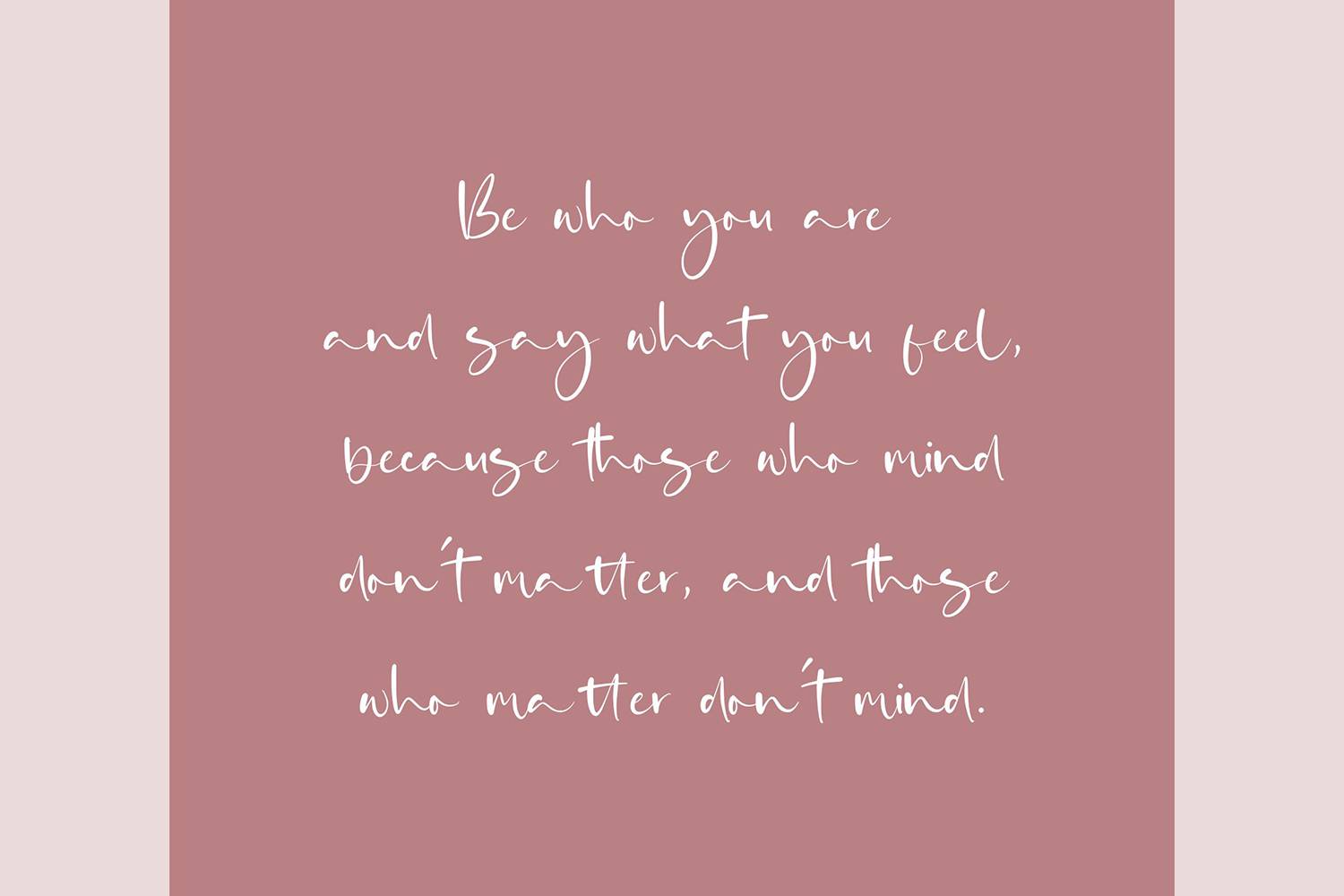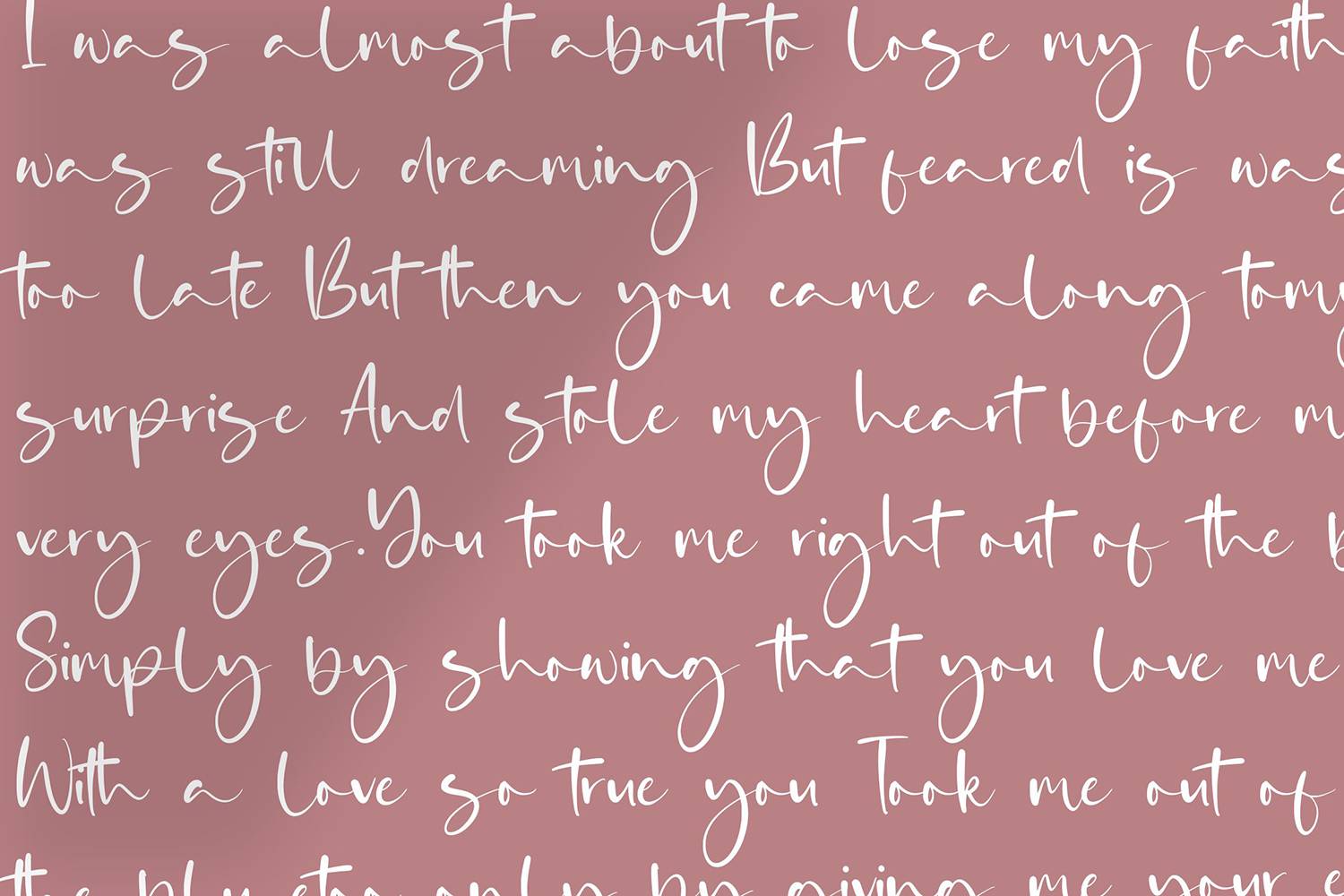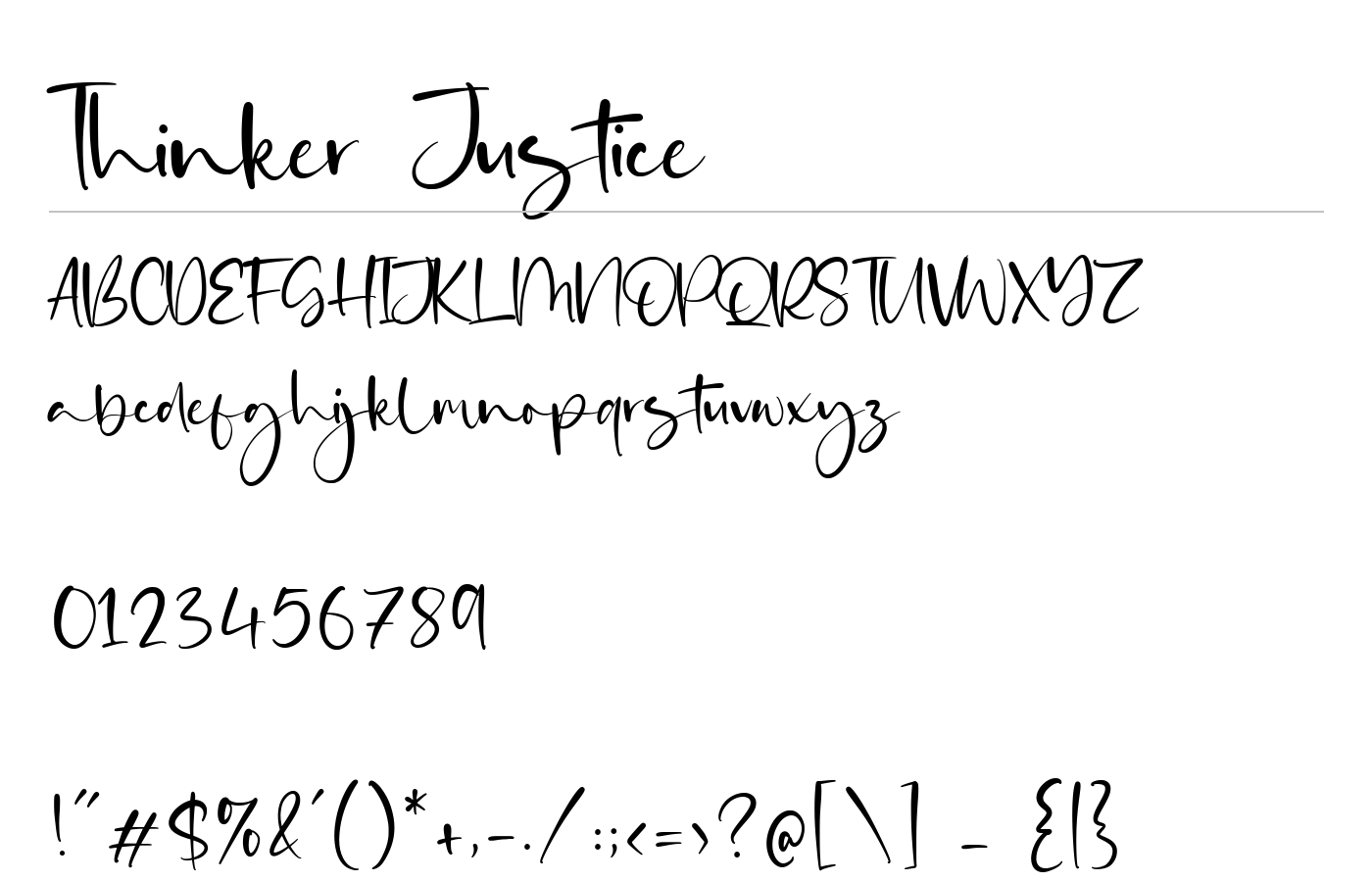
Thinker Justice is a lively, handwritten script font with a playful and informal feel. Its thin strokes vary slightly in width, giving it a casual, personal touch that works beautifully for creative projects, invitations, and branding that seeks warmth and approachability. This font is perfect for adding a friendly, modern vibe to logos, social media graphics, or any design needing a charming, human touch.
Thinker Justice Font
About Thinker Justice Font